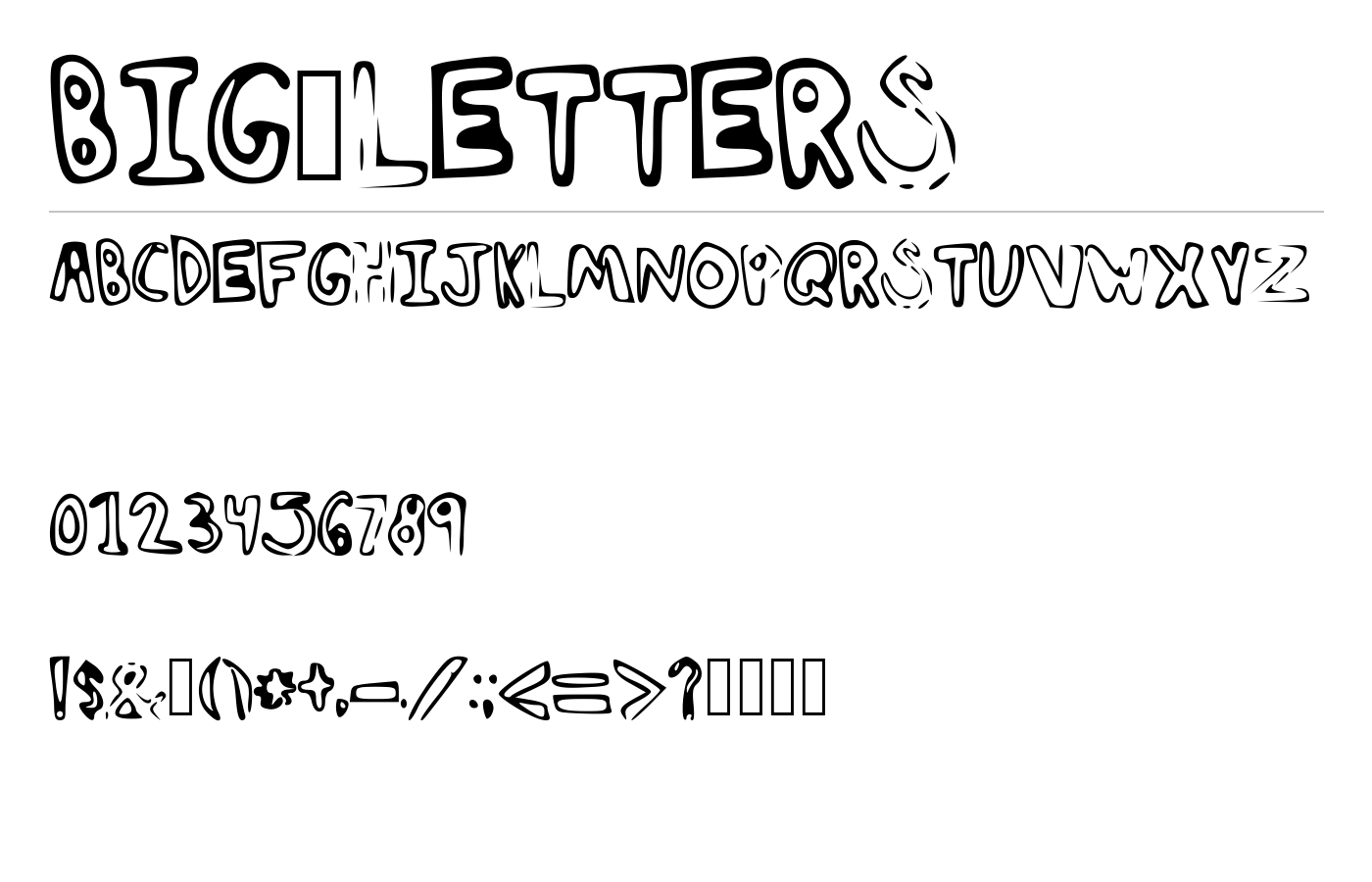
BIG_LETTERS is a playful and bold display font with an irregular, hand-drawn feel that captures attention with its quirky, uneven letter shapes and varied stroke thickness. Its fun, informal style is perfect for creative projects, children's materials, or anything that needs a lighthearted and energetic vibe. This font works best in headlines, logos, and posters where a unique, eye-catching look is desired.
BIG_LETTERS Font